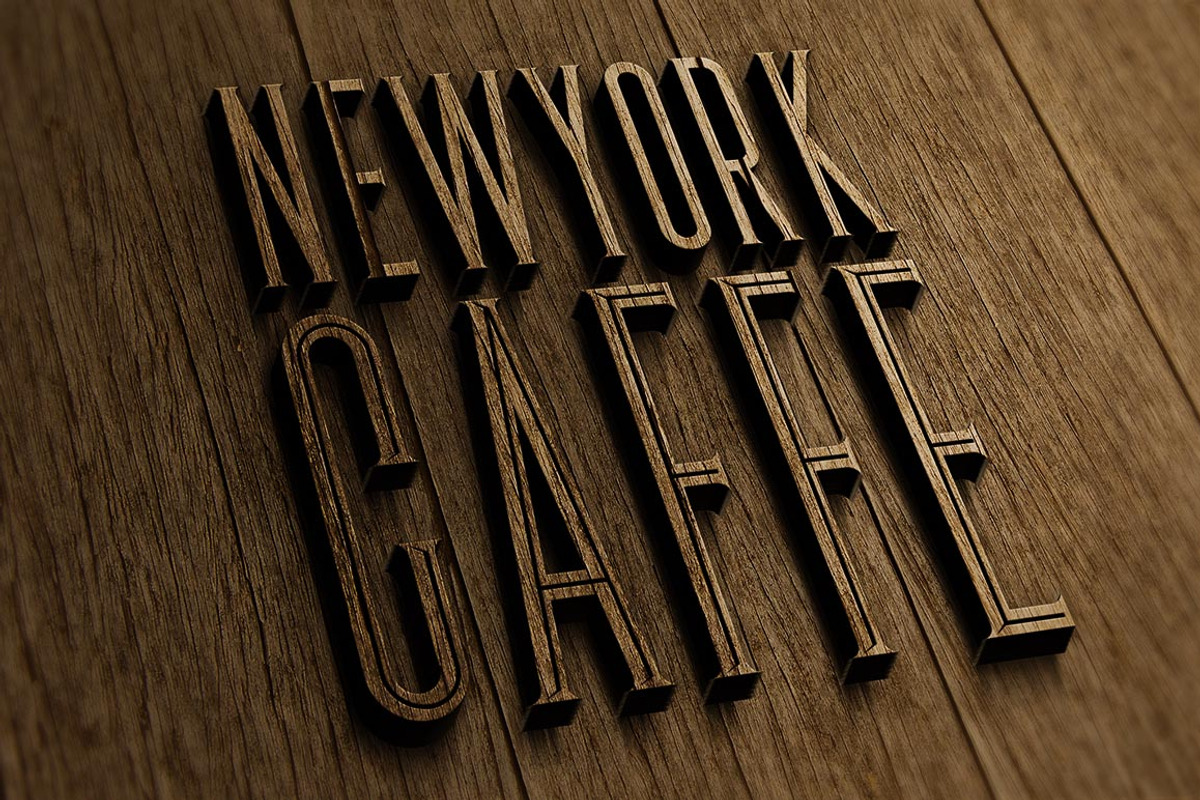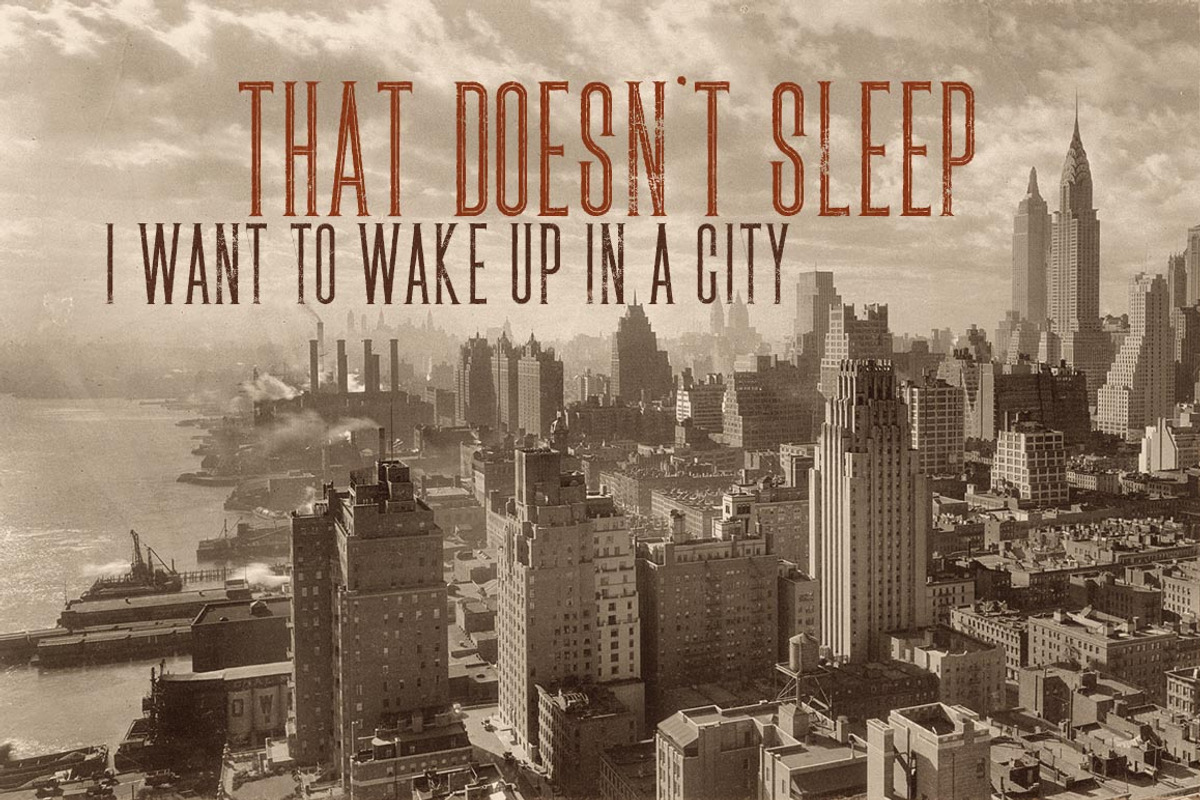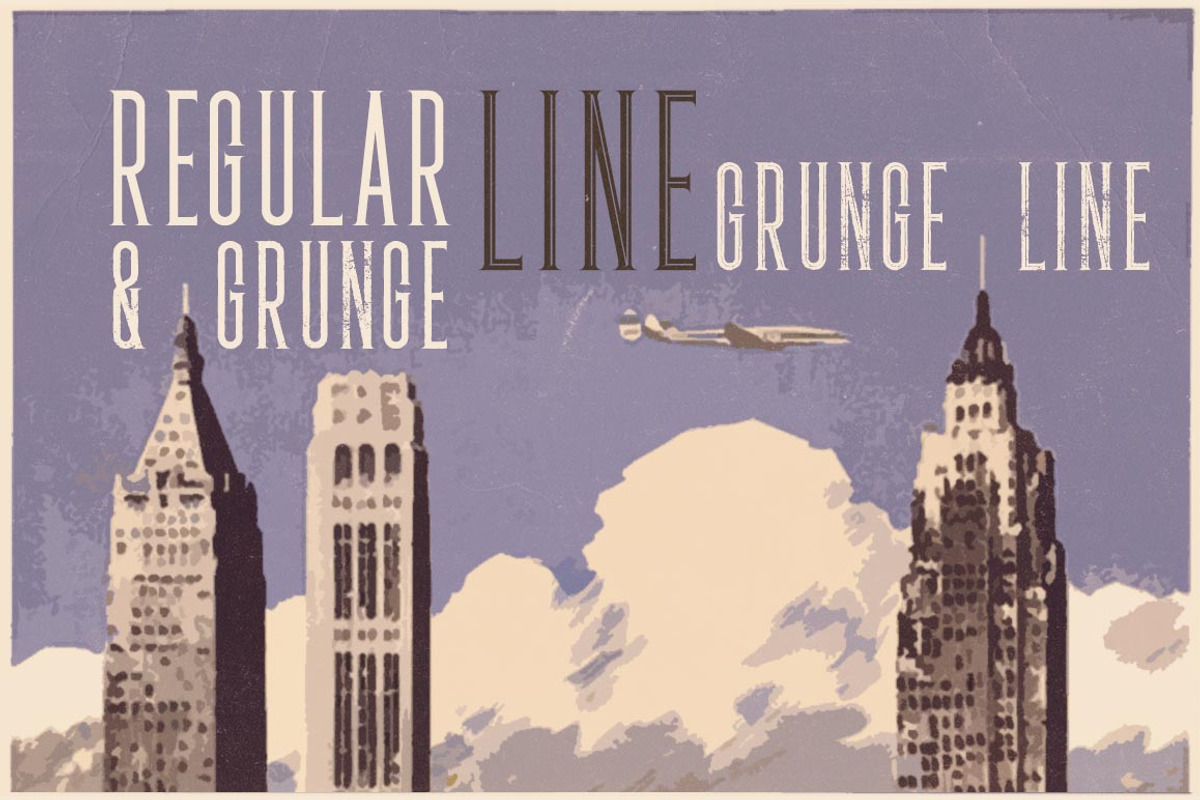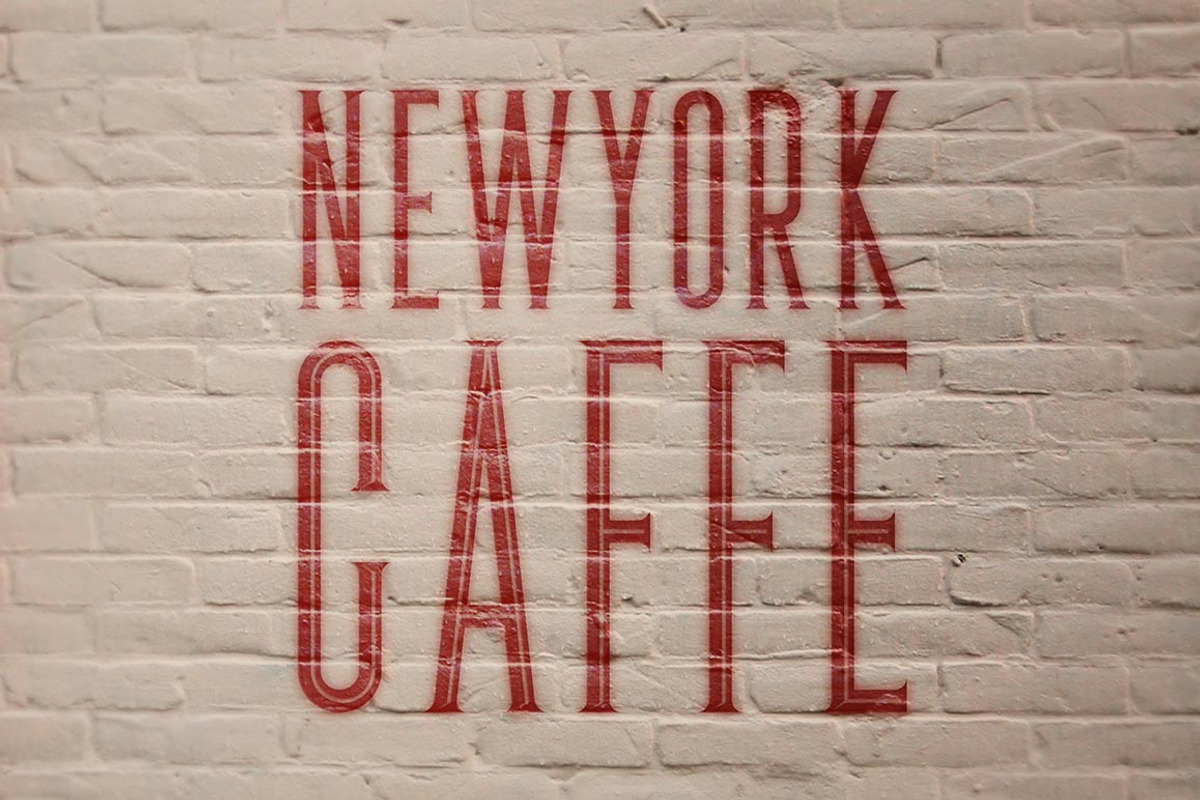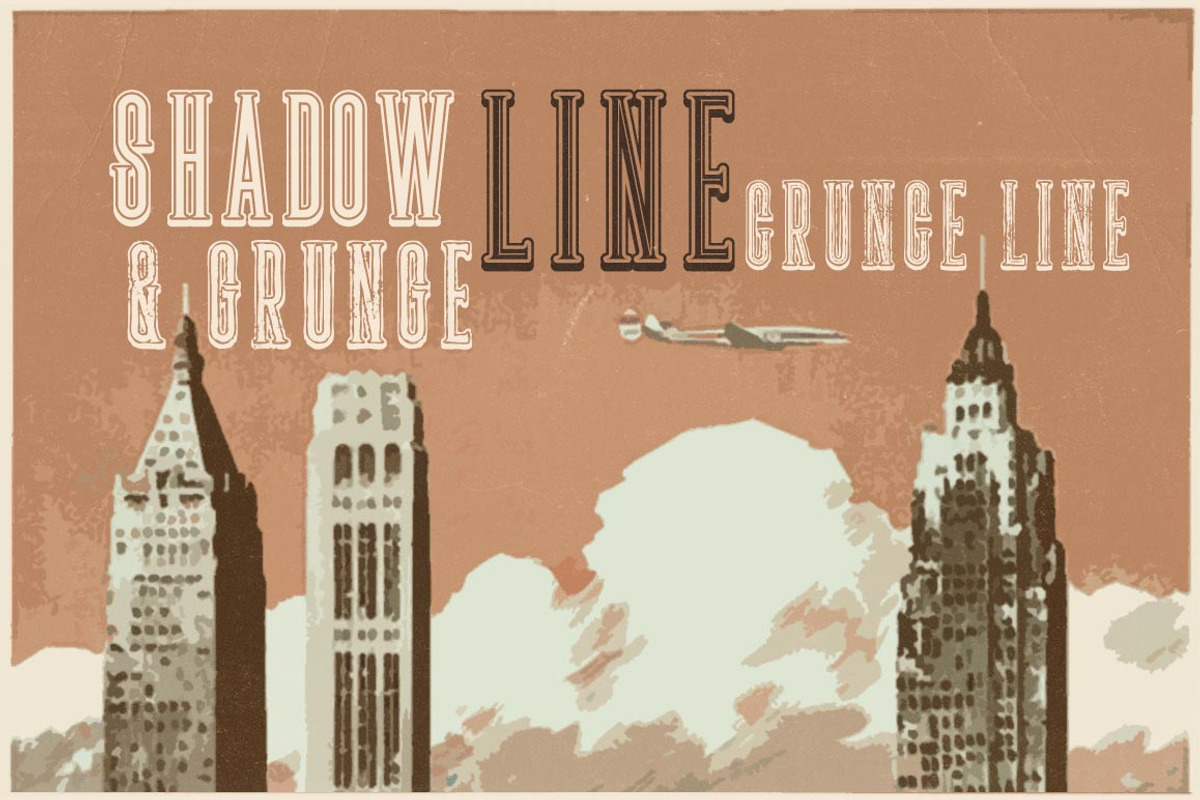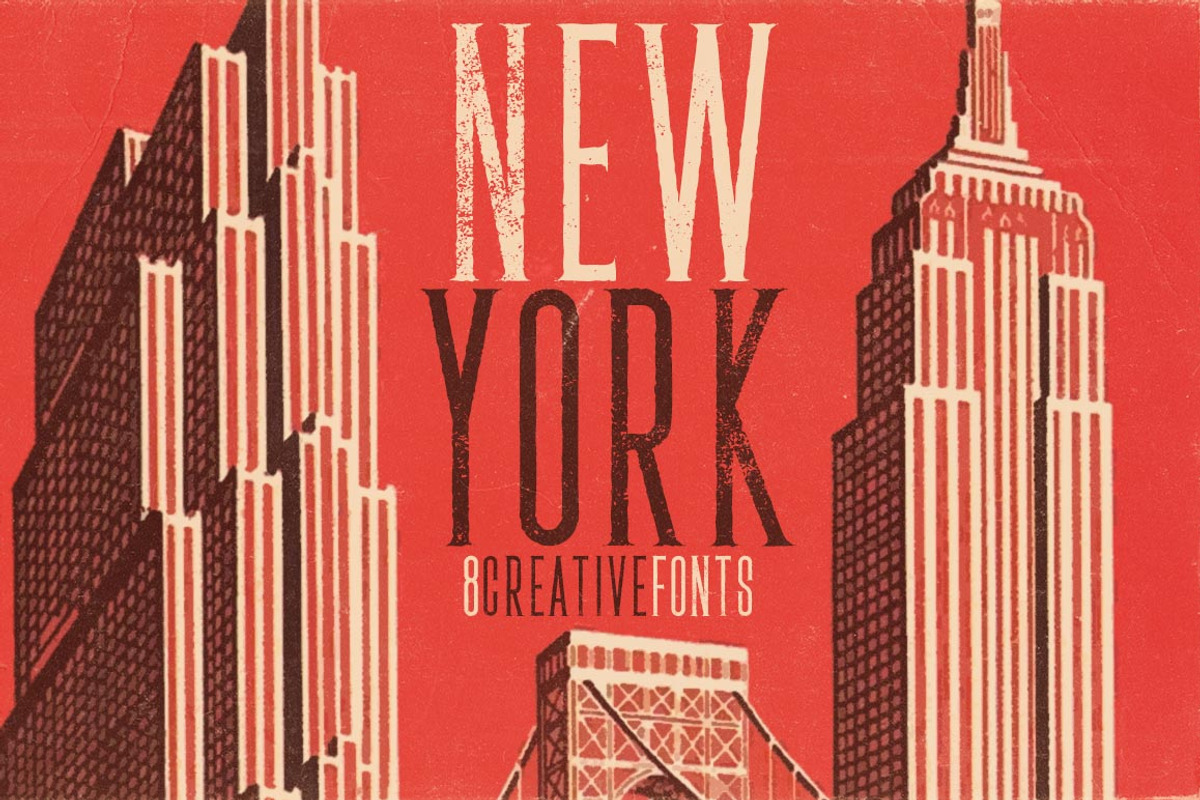
New York Font
New York Font by Cruzine is a font selected for branding, posters, packaging, typography.
Why New York Font is worth a look
New York Font by Cruzine fits naturally into Branding, posters, packaging, typography.